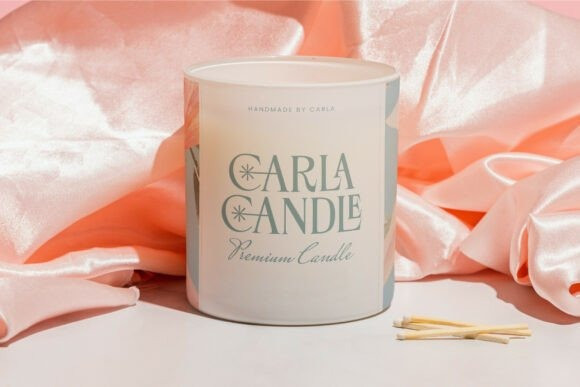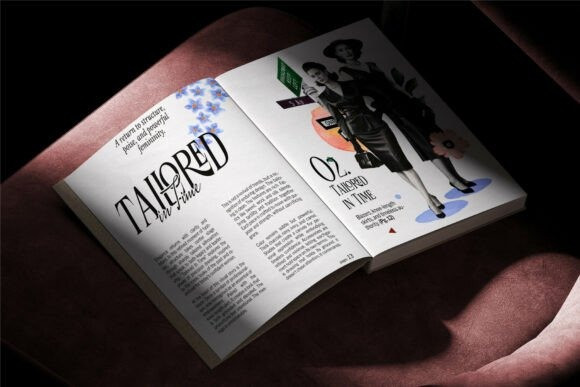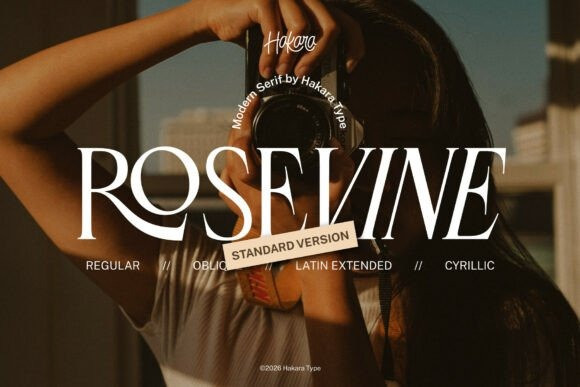
Rosevine Font is a refined modern serif typeface designed with elegance, contrast, and timeless sophistication. It blends sharp serif details with smooth curves, creating a luxurious yet contemporary aesthetic that works beautifully across branding, editorial layouts, fashion campaigns, and high-end packaging.
This Rosevine Serif typeface is crafted for high-fashion magazine titles, luxury beauty branding, and cinematic editorial layouts. The Rosevine Serif font commands attention with its sophisticated structure and artistic ligatures, making it a premier choice for brands that want to project a confident, avant-garde image.
As a versatile addition to any designer’s toolkit, the Rosevine Serif typeface includes extensive character support, including Latin Extended and Cyrillic weights, ensuring global reach for your high-end projects. Pair the Rosevine Serif font with minimalist photography and generous white space to create a “vogue” aesthetic that is both timeless and trendy.Whether you are designing a sleek logo or a premium product catalog, this typeface provides a refined, intellectual edge that elevates your work to professional heights.